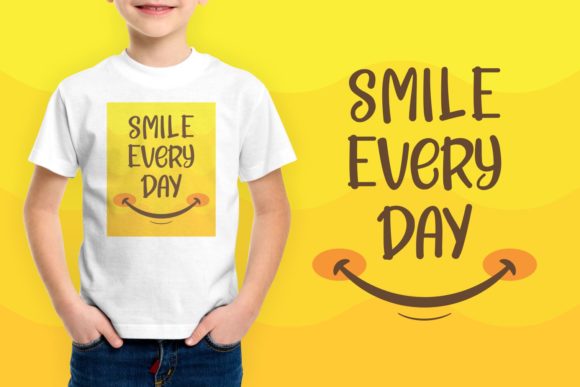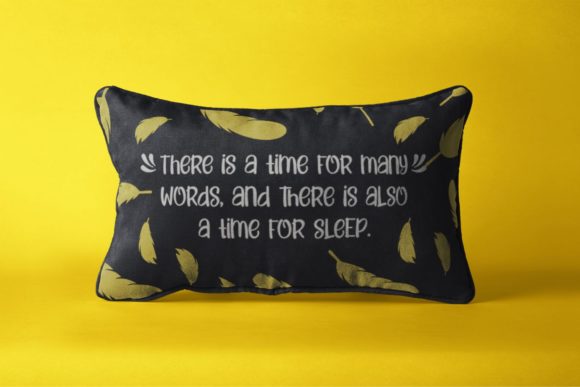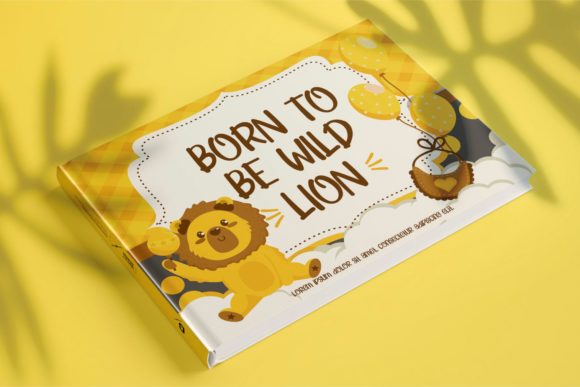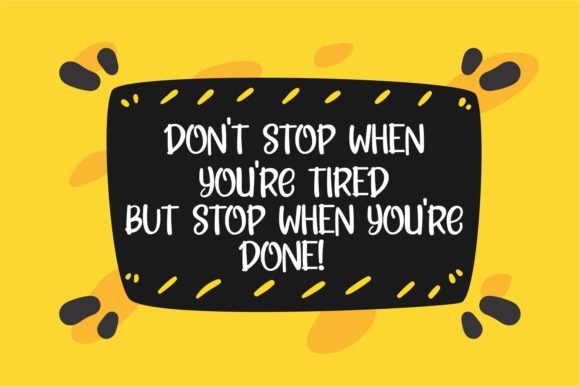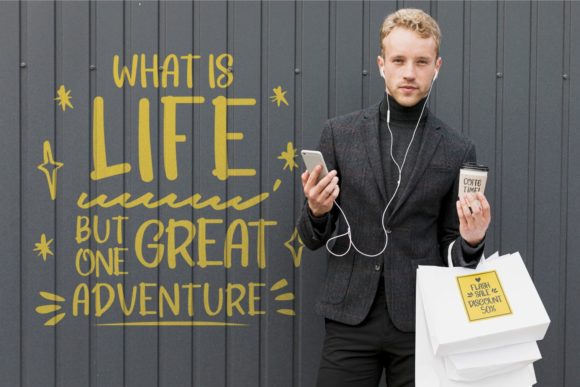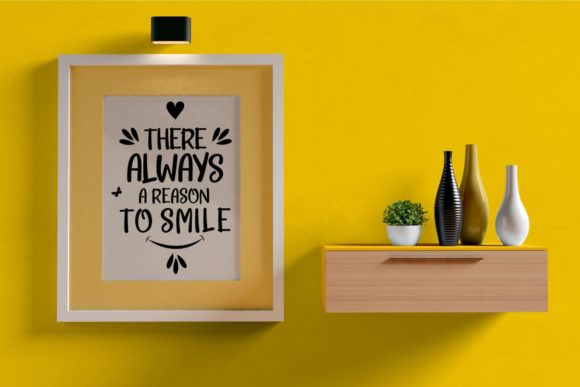
Introduction to Power Sell Font
Power Sell is fun and confident display font that will effortlessly turn any design idea into a standout.
Power Sell is fun and confident display font that will effortlessly turn any design idea into a standout!
Key Features of Power Sell Font